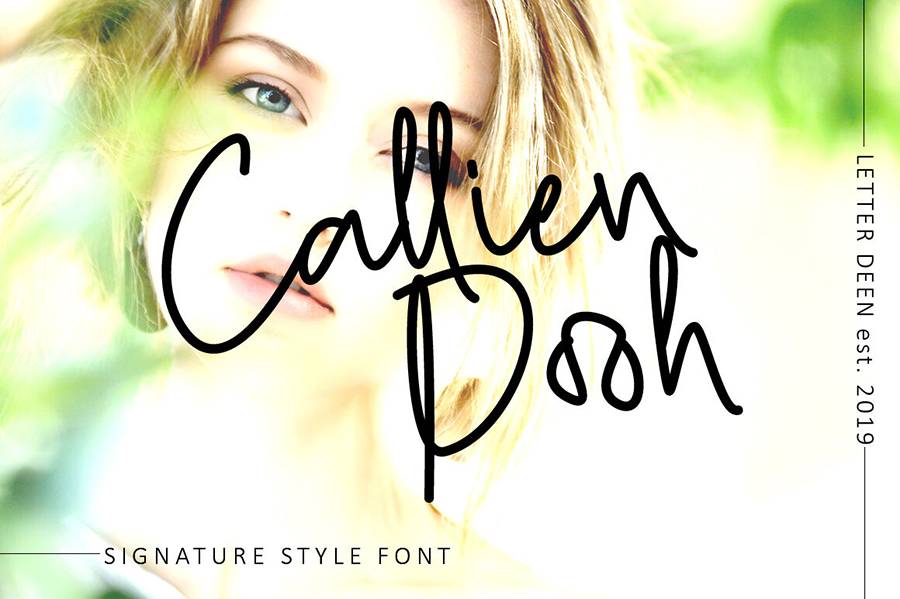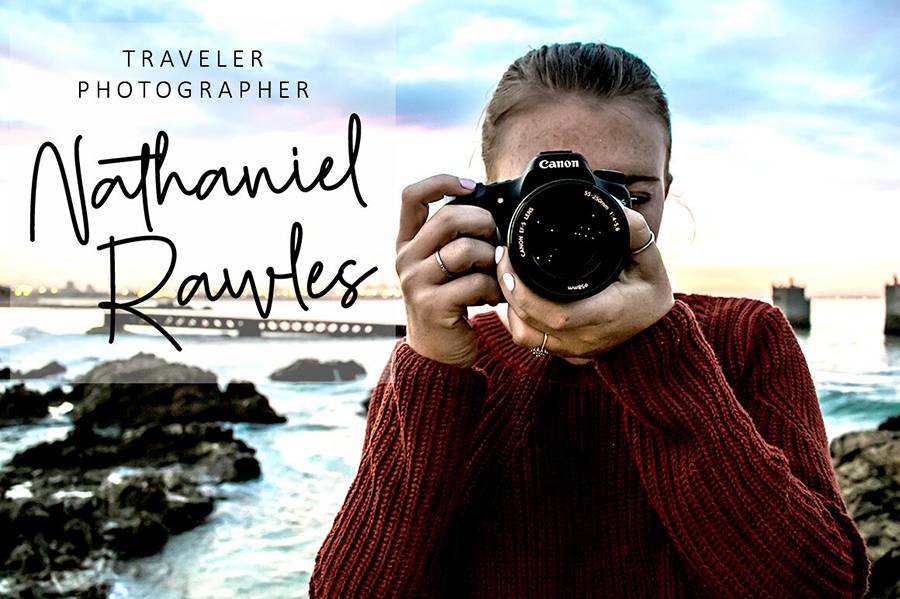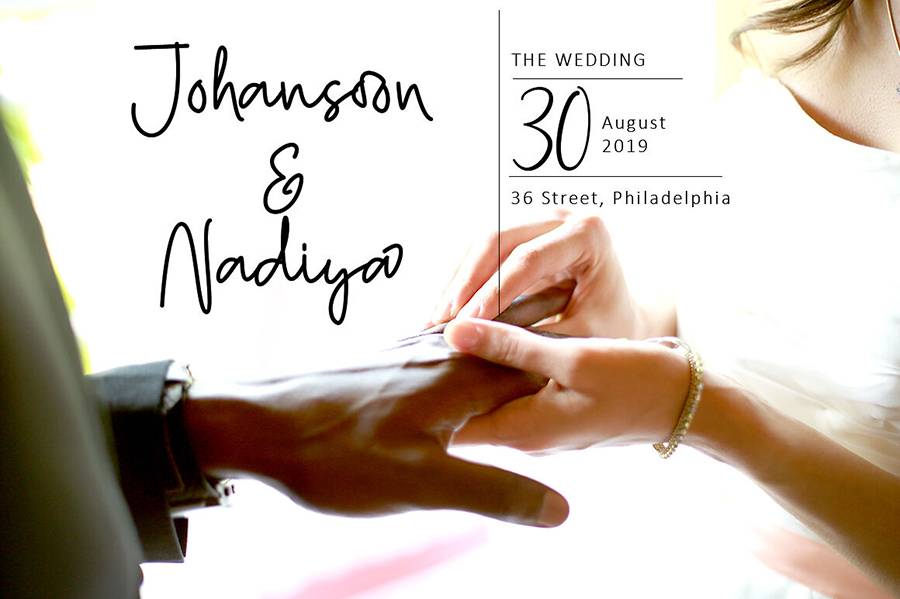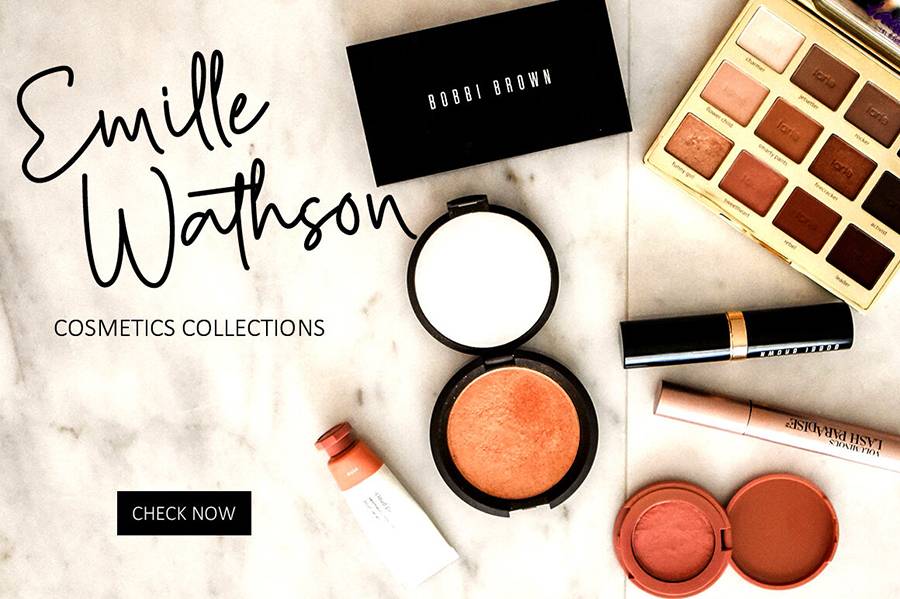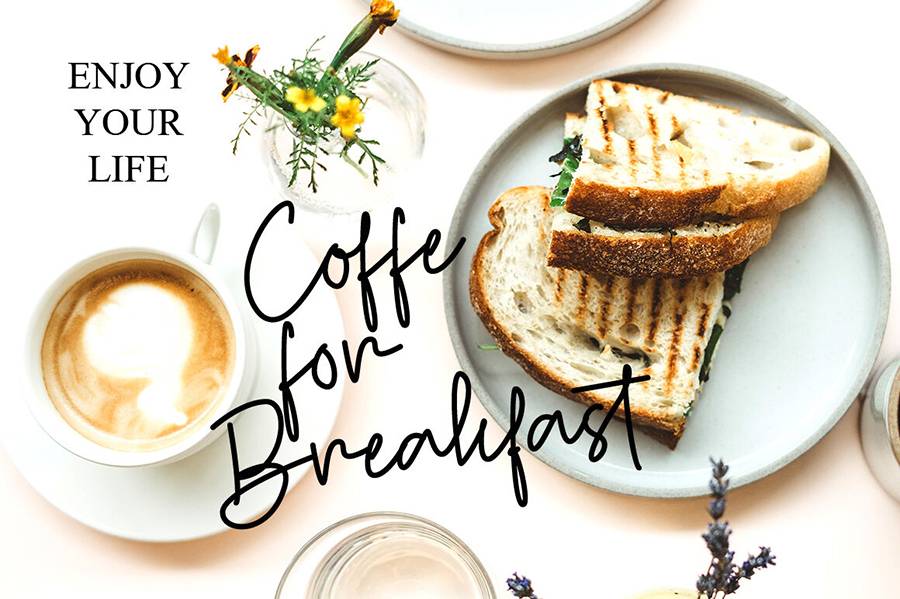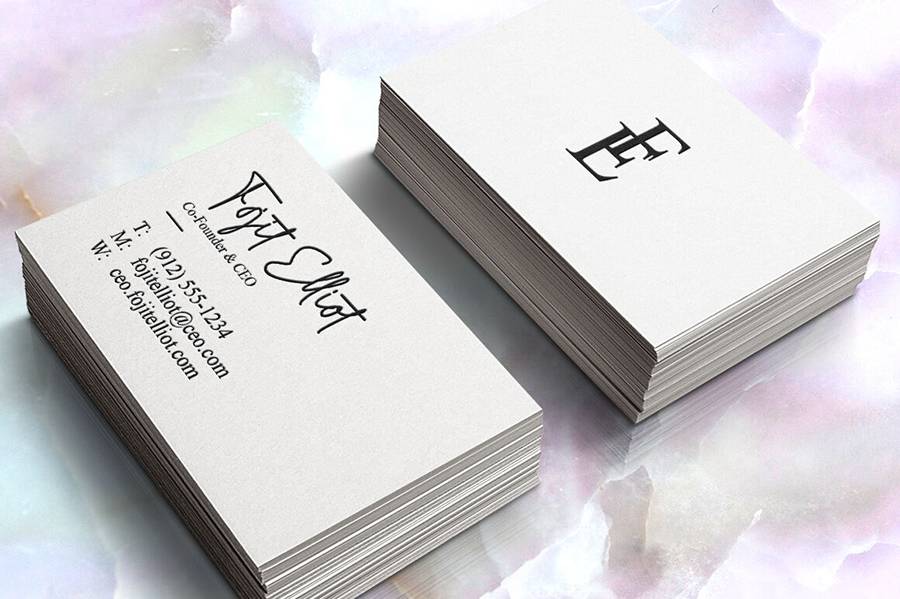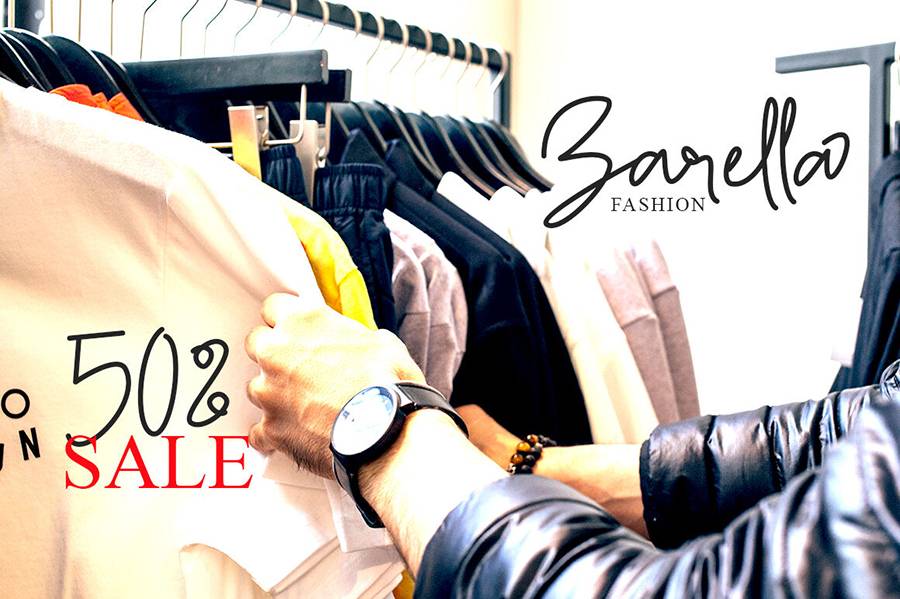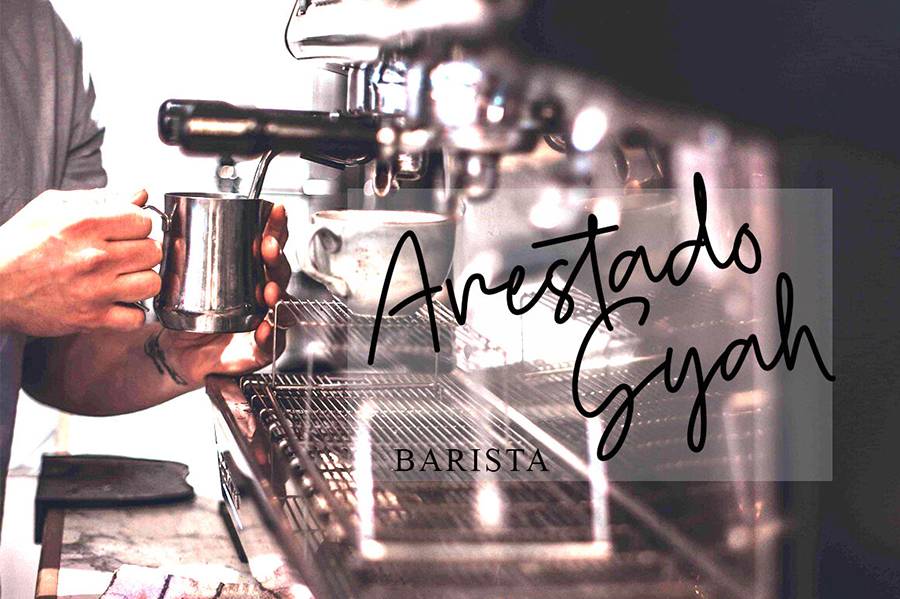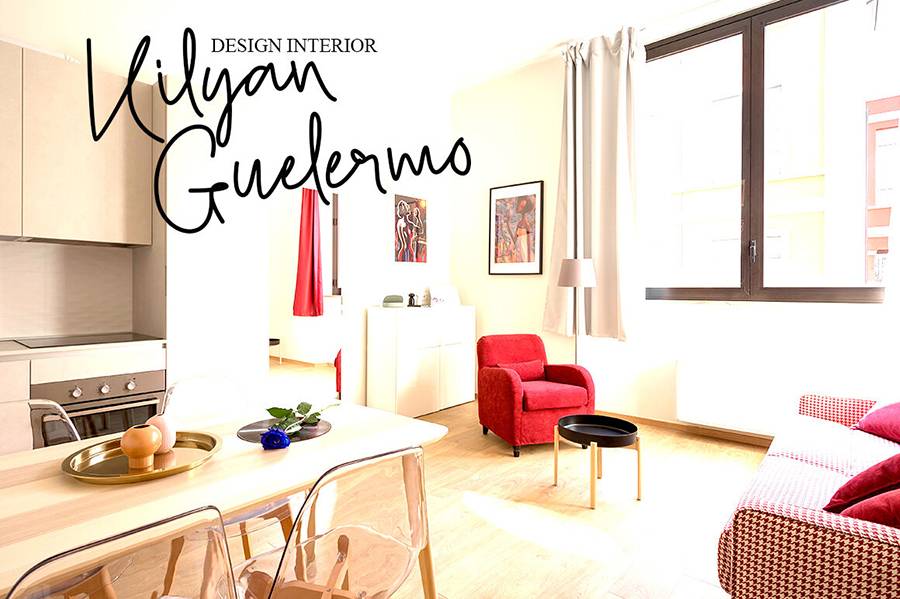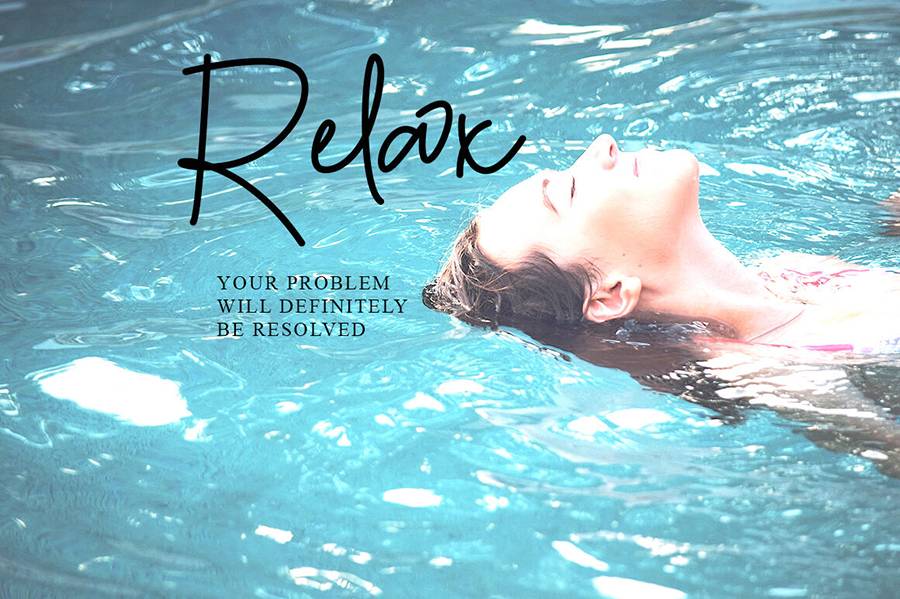
Callien Pooh is a delicate and casual handwritten script font with a light weight and airy feel, featuring tall, narrow letterforms and a playful mix of connected and separate strokes. Its elegant yet informal style makes it perfect for creative branding, invitations, and social media designs that seek a personal, friendly touch. This font works especially well in projects that want to convey warmth and individuality without sacrificing modern simplicity.
Callien Pooh Handlettering Font
About Callien Pooh Handlettering Font
| Font family | Callien Pooh Handlettering Font |
| Release date | 2019-08-26 |
| Designer | Muhammad Wahyudin |